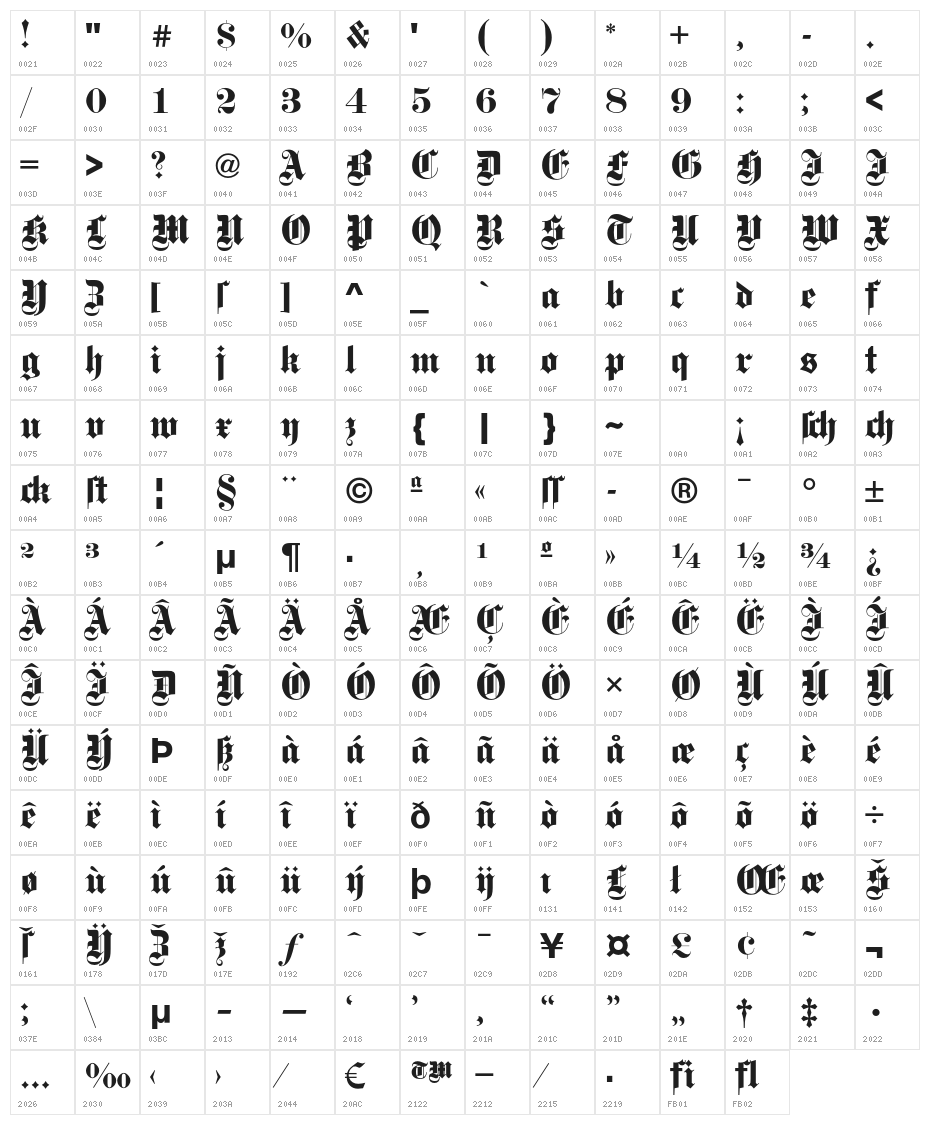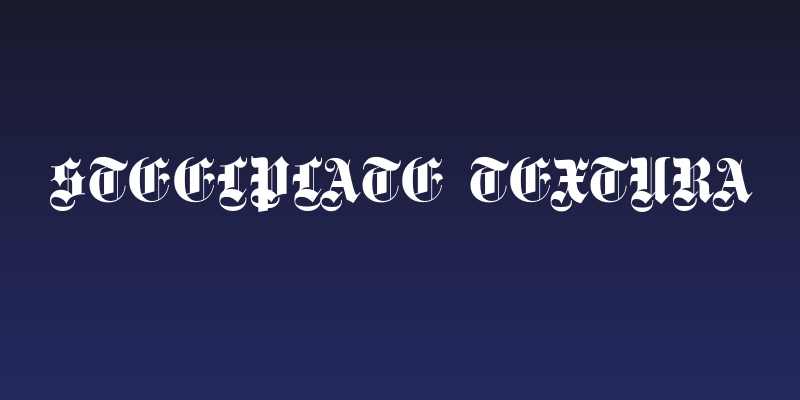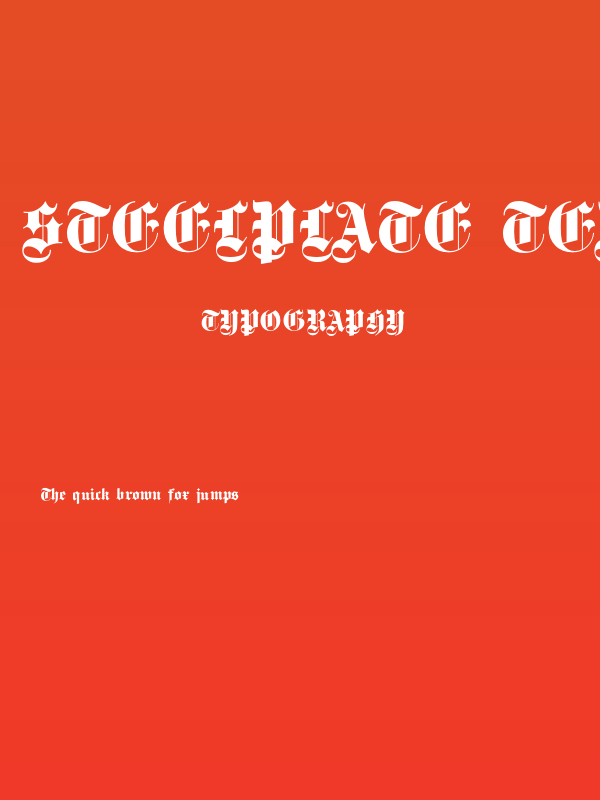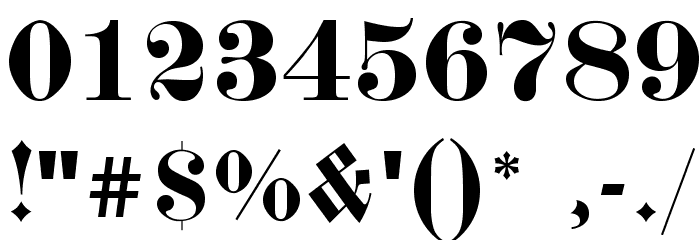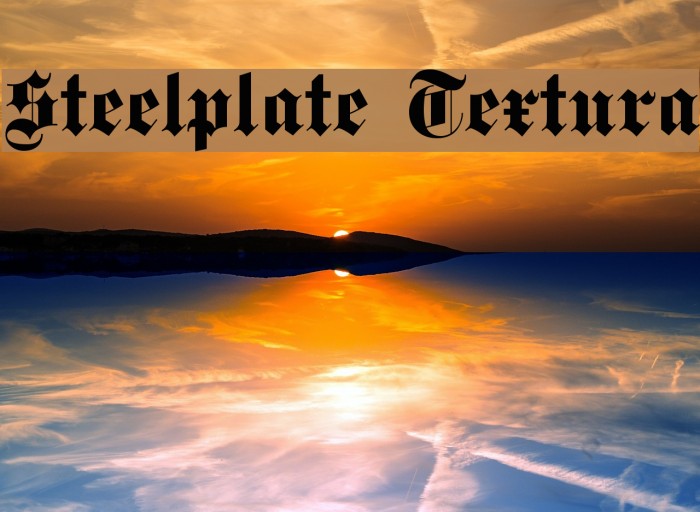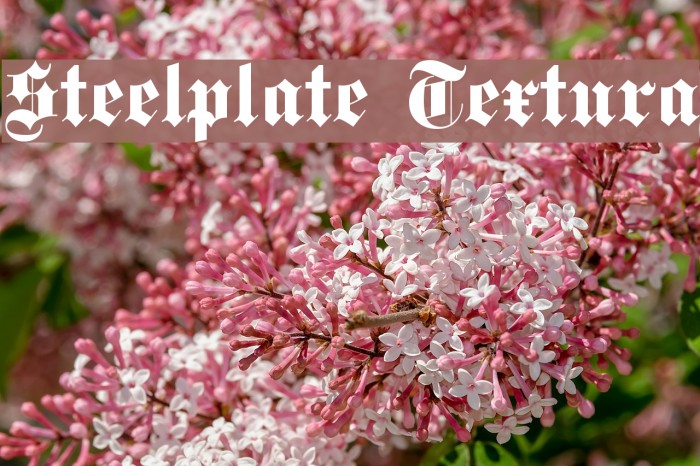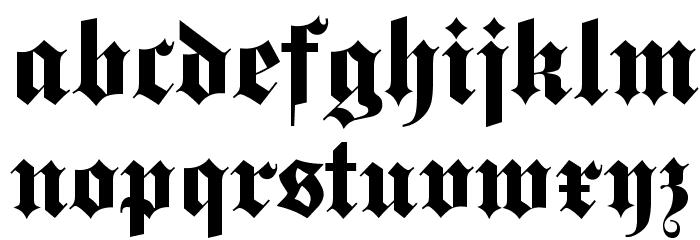
Steelplate Textura Font
Steelplate Textura Description
This font features a bold and dramatic style, reminiscent of traditional blackletter typefaces. The characters are intricately designed with sharp, angular lines and ornate details, giving it a historic and authoritative appearance. The uppercase letters are particularly striking, with elaborate flourishes and a strong presence. The lowercase letters maintain the same level of detail, ensuring consistency throughout the typeface. Numbers and special characters are equally bold, with a distinctive style that complements the overall aesthetic. This font is ideal for projects that require a touch of elegance and tradition.
| Overall Style | Classic |
| Proposed Projects | Suitable for certificates, historical documents, book covers, and branding that requires a classic touch. |